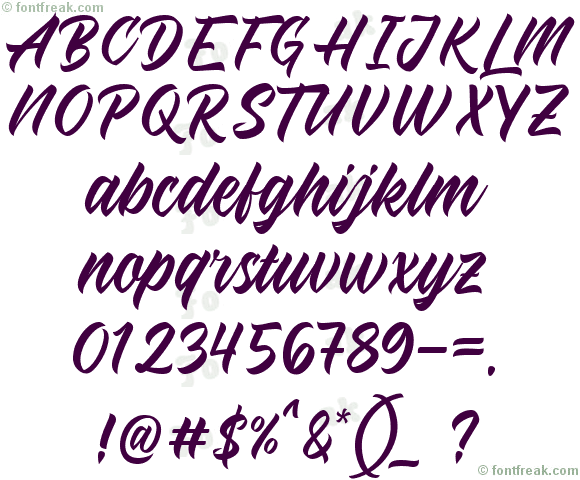
The Rich Family
The Rich Family by Situjuh Nazara is a stunning display font that captures attention with its elegant, flowing strokes. This script font showcases a perfect blend of modern and classic design elements, making it ideal for a variety of creative projects. Its graceful curves and smooth lines create a sense of sophistication, while the varying stroke weights provide a dynamic look. The rich contrast between thick and thin strokes gives the font a visually appealing depth, enhancing its overall aesthetic. With its ample spacing, The Rich Family ensures readability, making it suitable for both headlines and body text.
This versatile font shines in specific use cases, such as wedding invitations where its romantic style can evoke a sense of joy and celebration. It is also perfect for branding projects, particularly for boutiques and artisanal shops that want to convey a sense of luxury and refinement. Additionally, The Rich Family works beautifully on restaurant menus, adding a touch of elegance that can entice diners. Graphic designers will find it useful for creating eye-catching posters or promotional materials, while content creators can utilize it for social media graphics that stand out in crowded feeds.
What sets The Rich Family apart is its unique ability to blend elegance with approachability, making it adaptable for various design needs. Whether you are crafting a romantic invitation or a chic brand logo, this font offers the perfect balance of style and functionality, making it a standout choice in the world of typography.